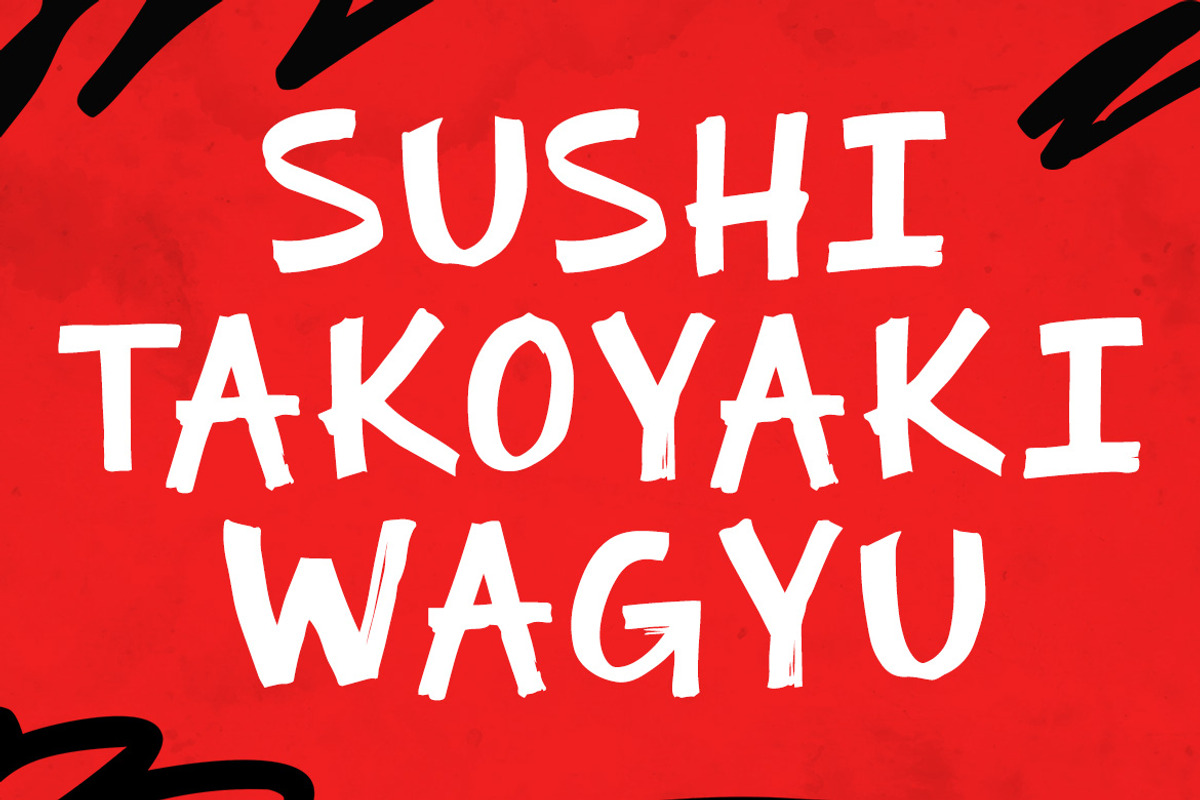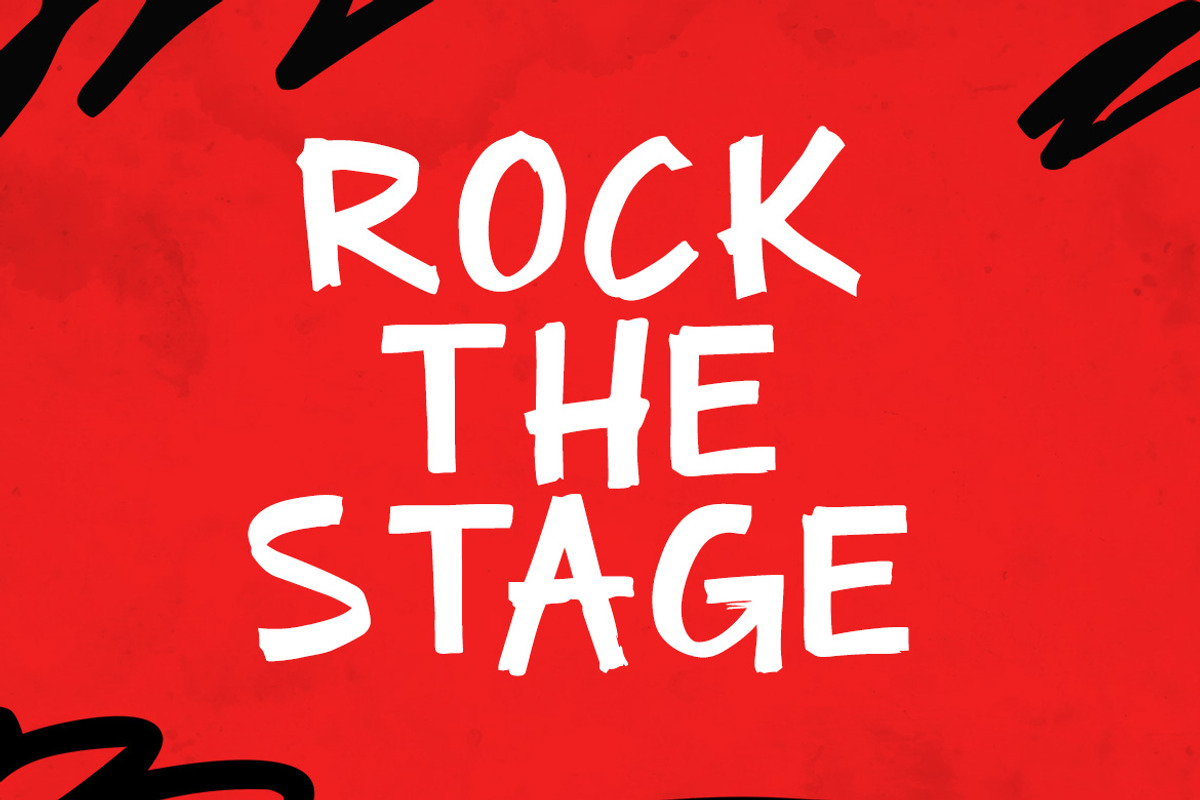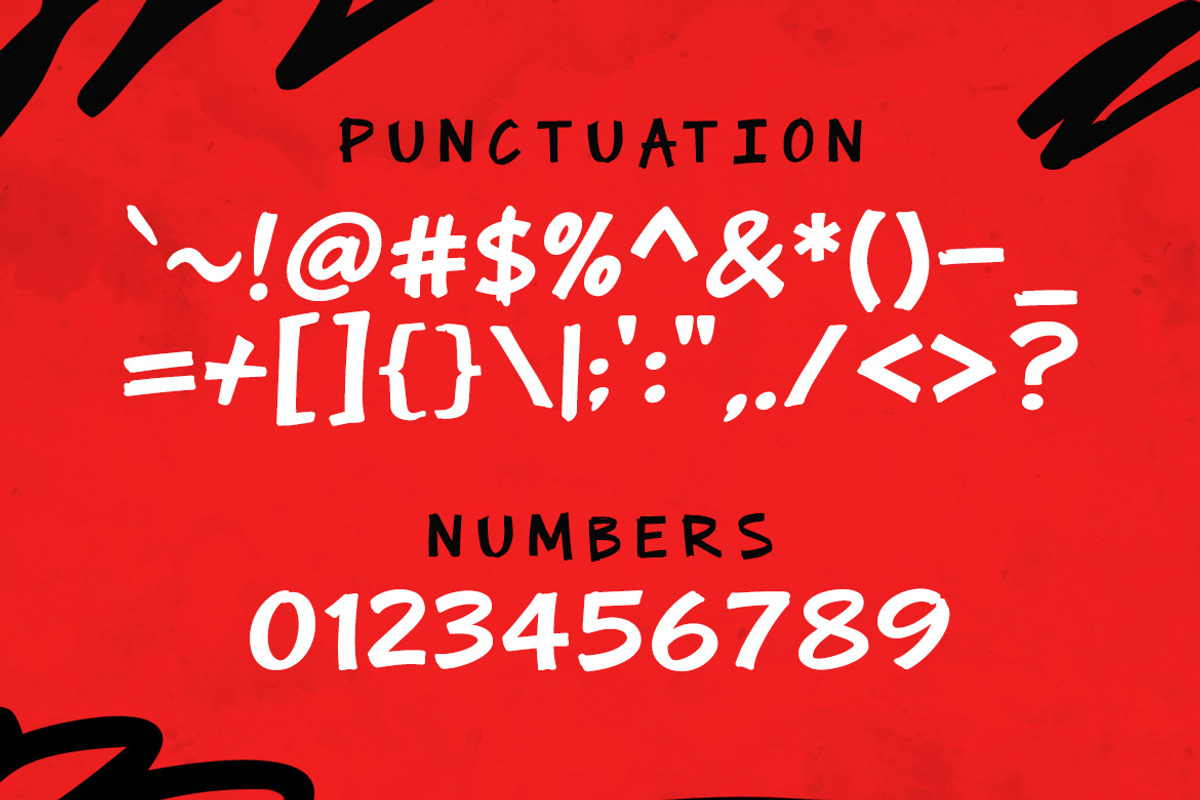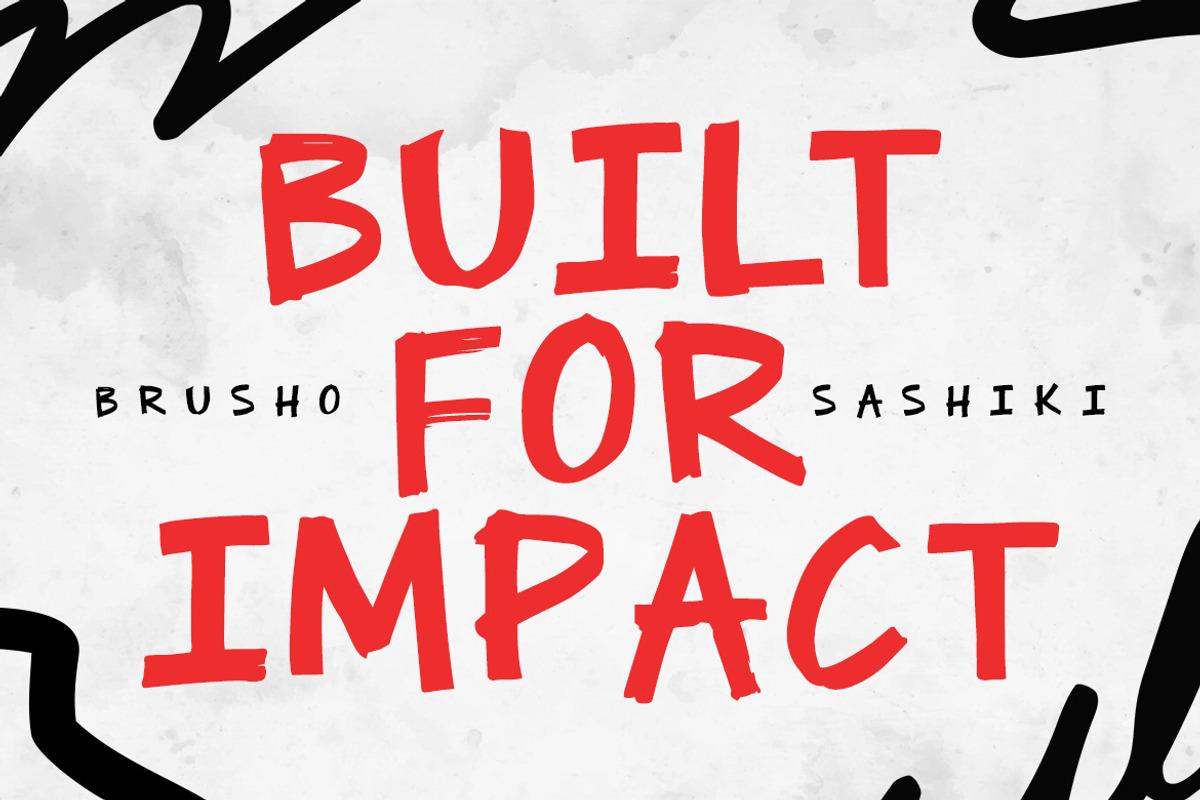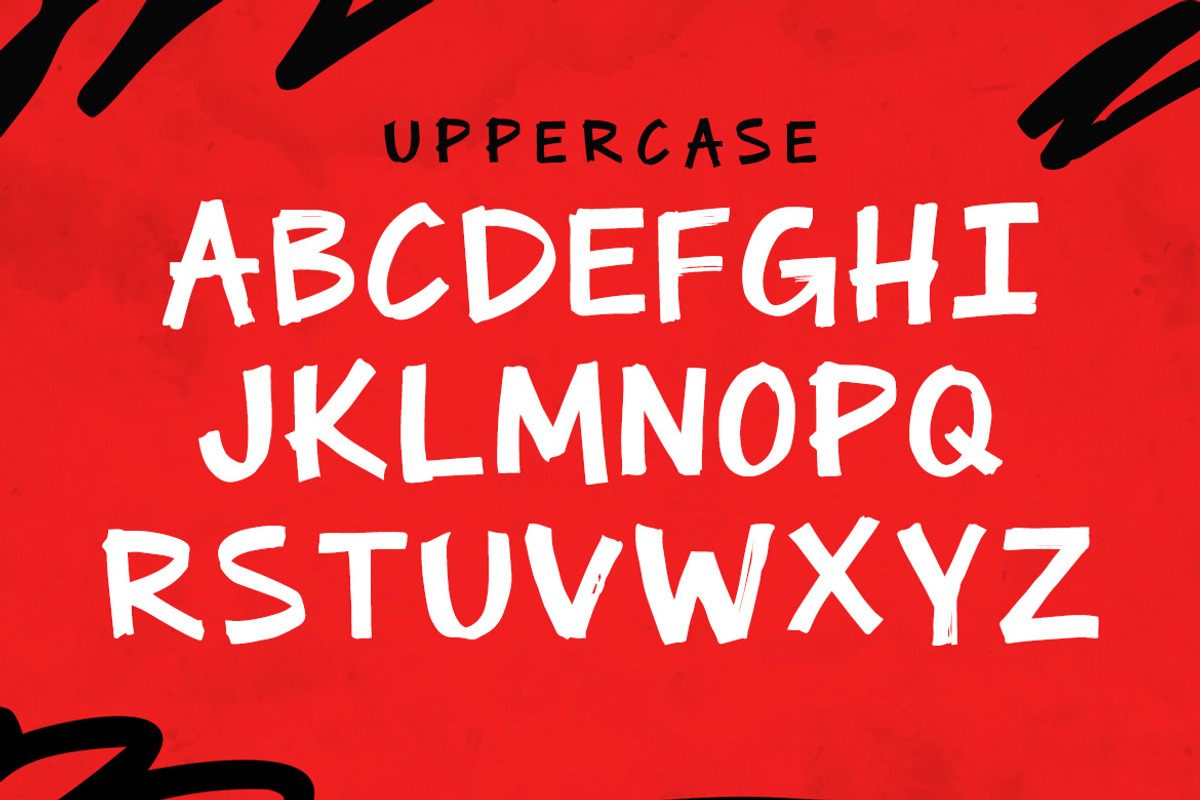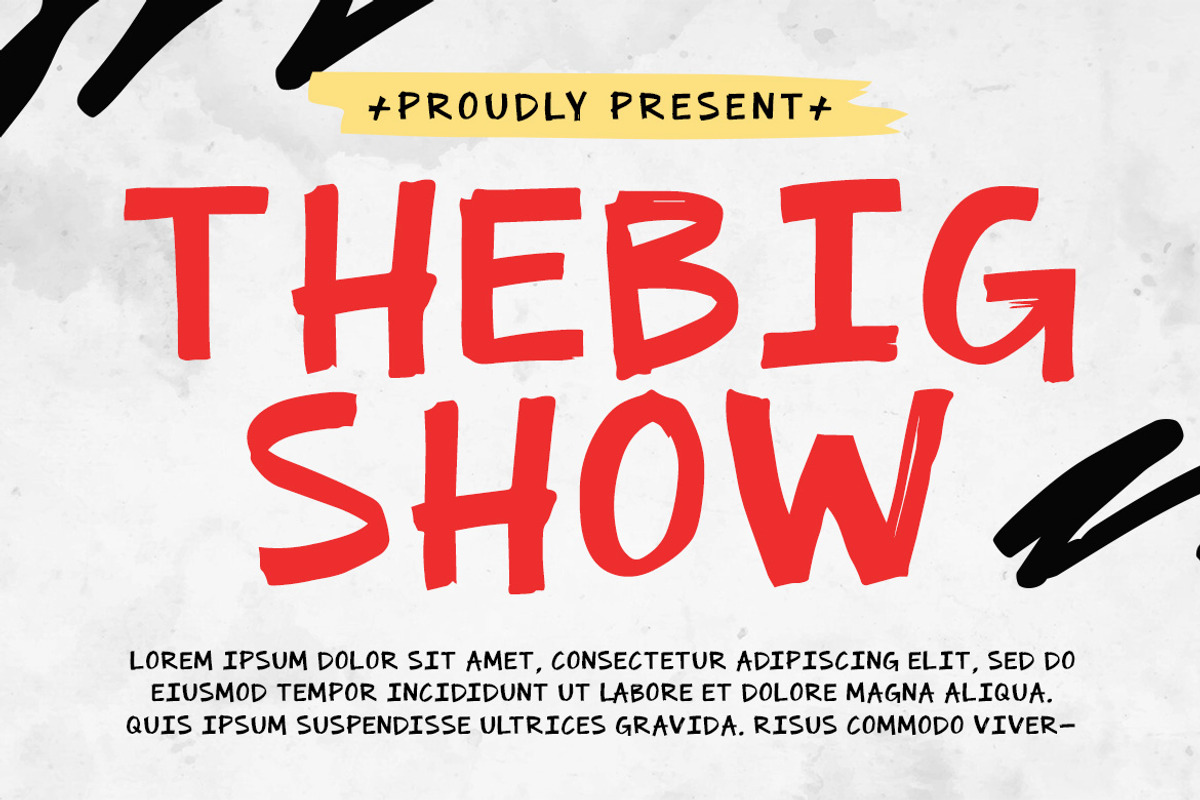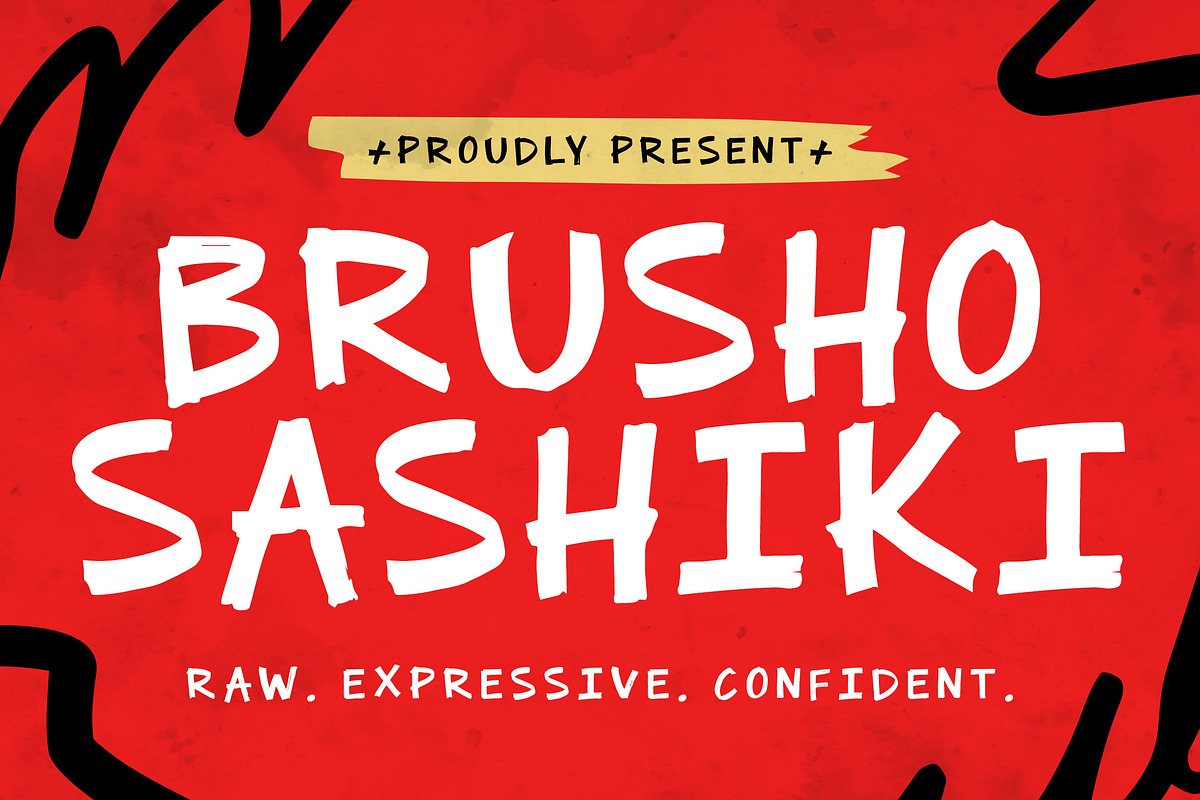
BRUSHO SASHIKI – Handwritten Brush
A bold, raw, and unapologetically expressive handwritten brush font that captures the energy of real ink strokes with a confident, street-style attitude. BRUSHO SASHIKI features uneven edges, organic stroke flow, and a handcrafted rhythm that feels authentic and powerful, making it perfect for branding, poster designs, packaging, apparel, album covers, social media graphics, and standout headlines. Its rough yet controlled personality delivers a modern rebellious vibe while maintaining excellent readability, ideal for creatives who want their typography to feel alive, dynamic, and full of character.